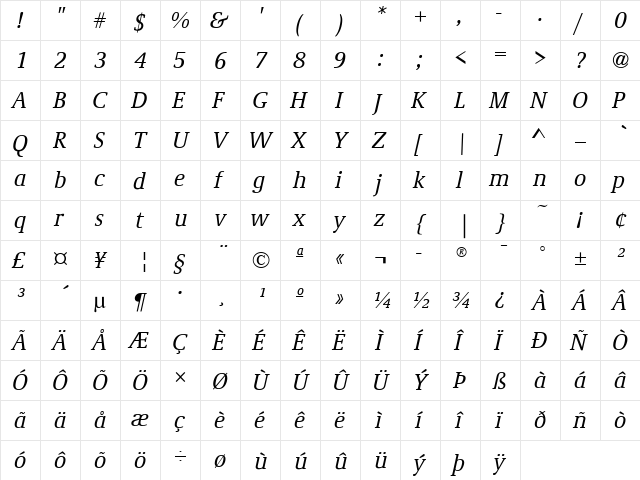
Demos LT Medium Italic Font Preview
Demos LT Medium Italic
Demos LT Medium Italic Font Details
Design Context for Demos LT Medium Typeface
Demos LT Medium offers clean, dependable letterforms without strong stylistic allegiance, making it a practical choice for designers who need flexibility. The dynamic lean of this cut emphasises speed and emphasis in any layout. The delicate stroke weight brings airiness and refinement to layouts.
Pro Tip: Use Demos LT Medium for emphasis, pull quotes, and subheadings where its slanted energy can add rhythm to the layout.